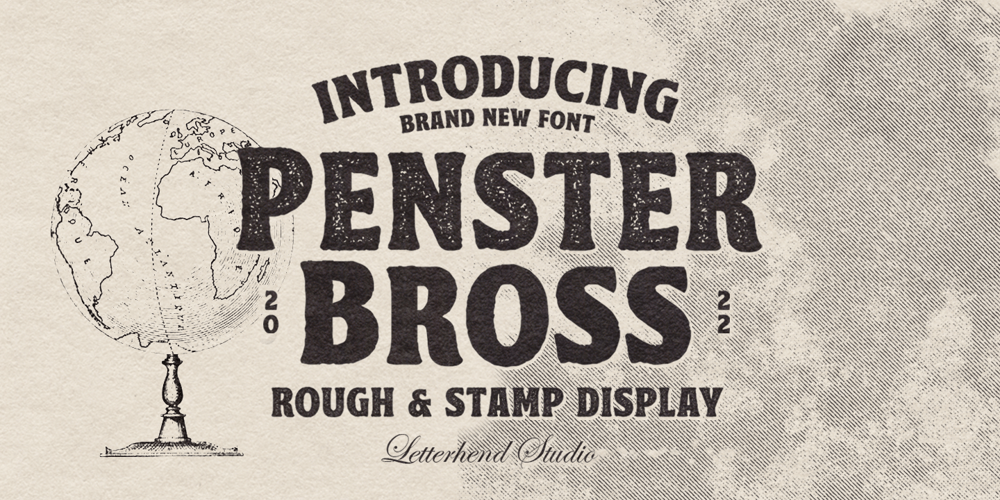
Penster Bross Font Family was designed by Hendry Juanda and published by Letterhend. Penster Bross contains 2 styles and family package options. Penster Bross is a standout bold font with rough and stamp version. The texture of the font makes this font looks great for retro and vintage theme.This font is also suitable to be applied especially in logo, and the other various formal forms such as invitations, labels, logos, magazines, books, greeting / wedding cards, packaging, fashion, make up, stationery, novels, labels or any type of advertising purpose.Features :- rough and stamp version- numbers and punctuation- multilingual- PUA encodedWe highly recommend using a program that supports OpenType features and Glyphs panels like many of Adobe apps and Corel Draw, so you can see and access all Glyph variations.